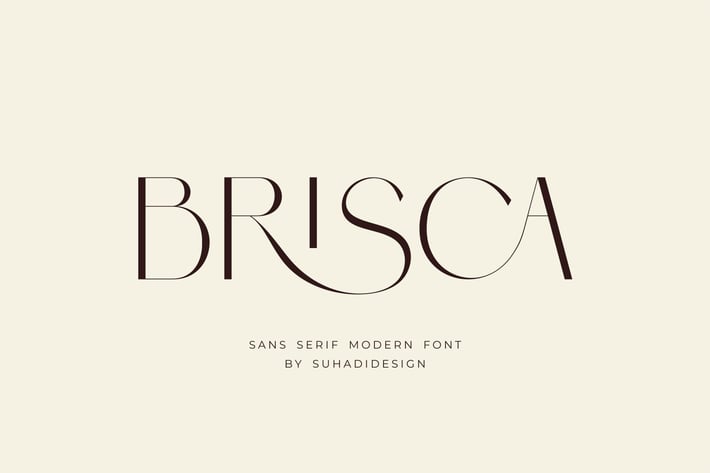
Brisca - Sans Serif Modern Font
suhadidesign
Brisca - Sans Serif Modern Font
Hi ladies and gentlemen! The latest stylish modern font has arrived which is a font that many ladies and gentlemen are looking at. Namely the Brisca font. The Brisca font is a modern and cool sans serif font. With a modern model and equipped with a ligature feature, it has become a market favorite. We keep this font looking elegant, classy, stylish. Brisca Font is the right choice for cosmetics, beauty, brands, logos, wordmarks, magazines, designs, books, publications, branding, brand names, business cards, social media, classy design, newspapers, branding, beauty and other projects. Brisca Font is here to improve the quality of your designs.
Feature:
• All Caps • Binding • Multilingual Support • Numerical • Punctuation